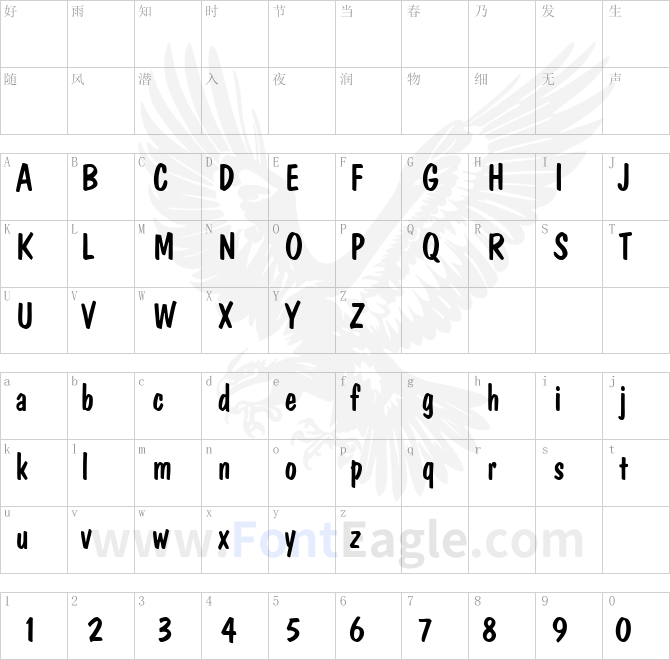
Dom-Casual-copy-1- is a great font, widely used in graphic design, single-page menu design, poster design and other fields, and is deeply loved by designers.Dom-Casual-copy-1- download.